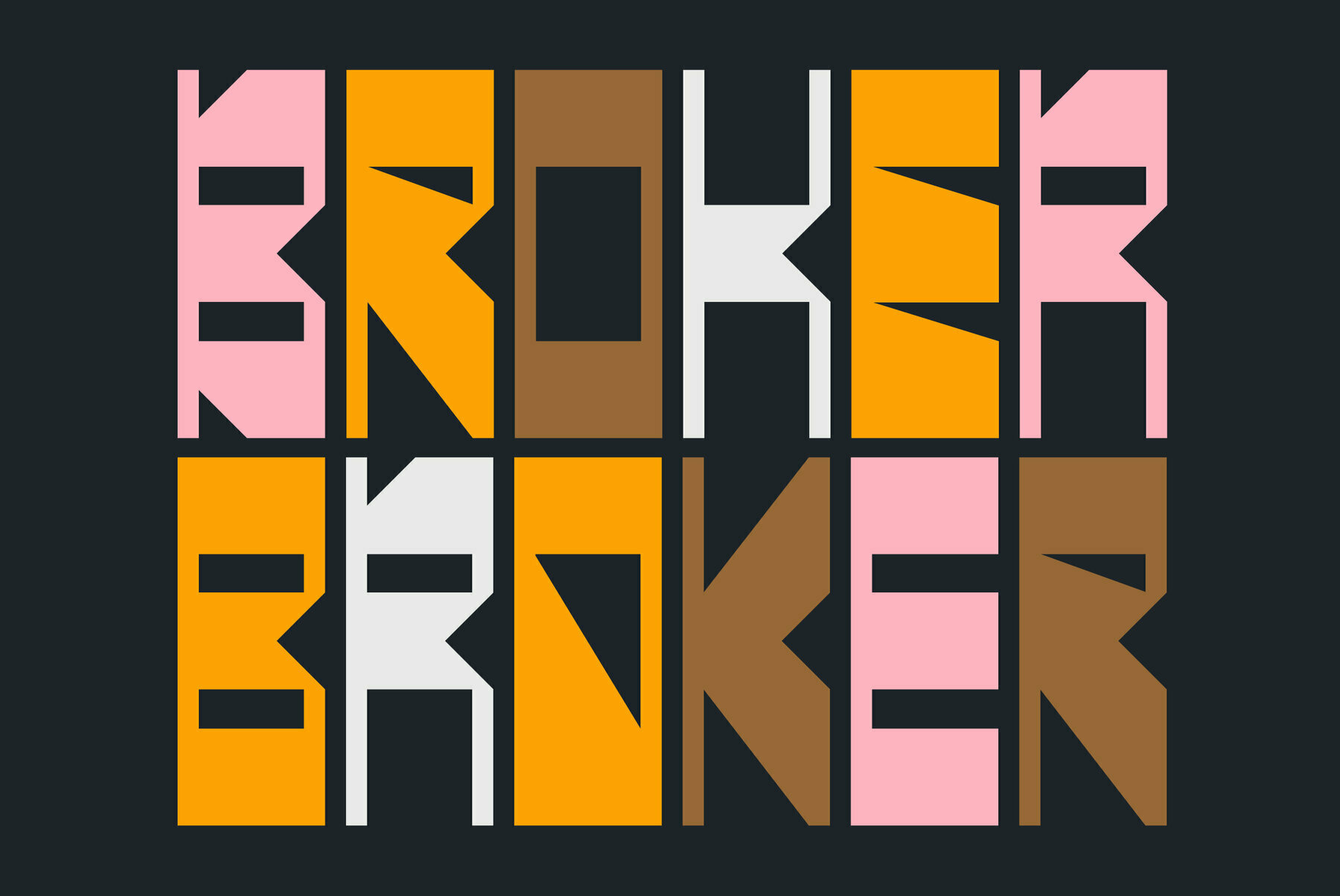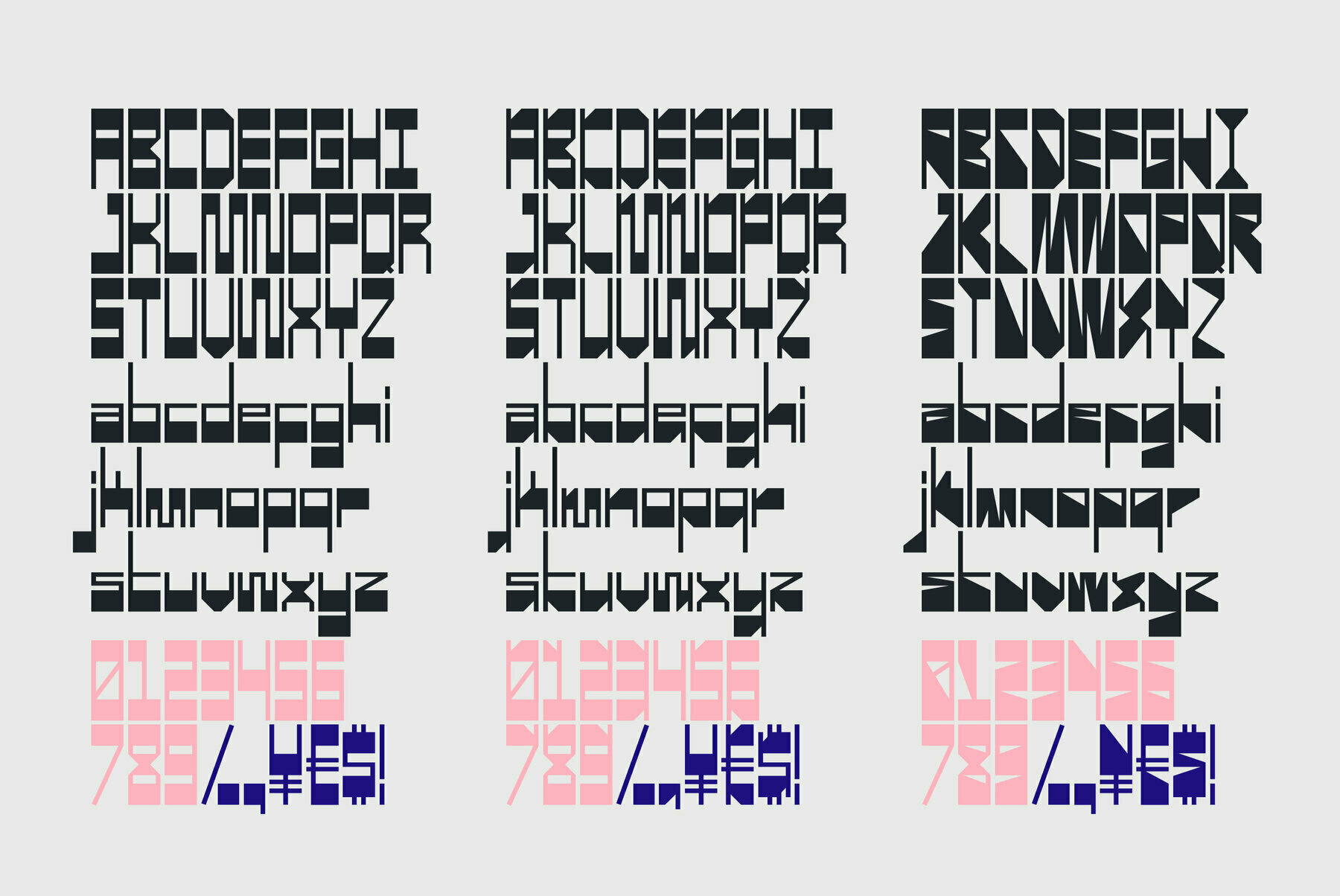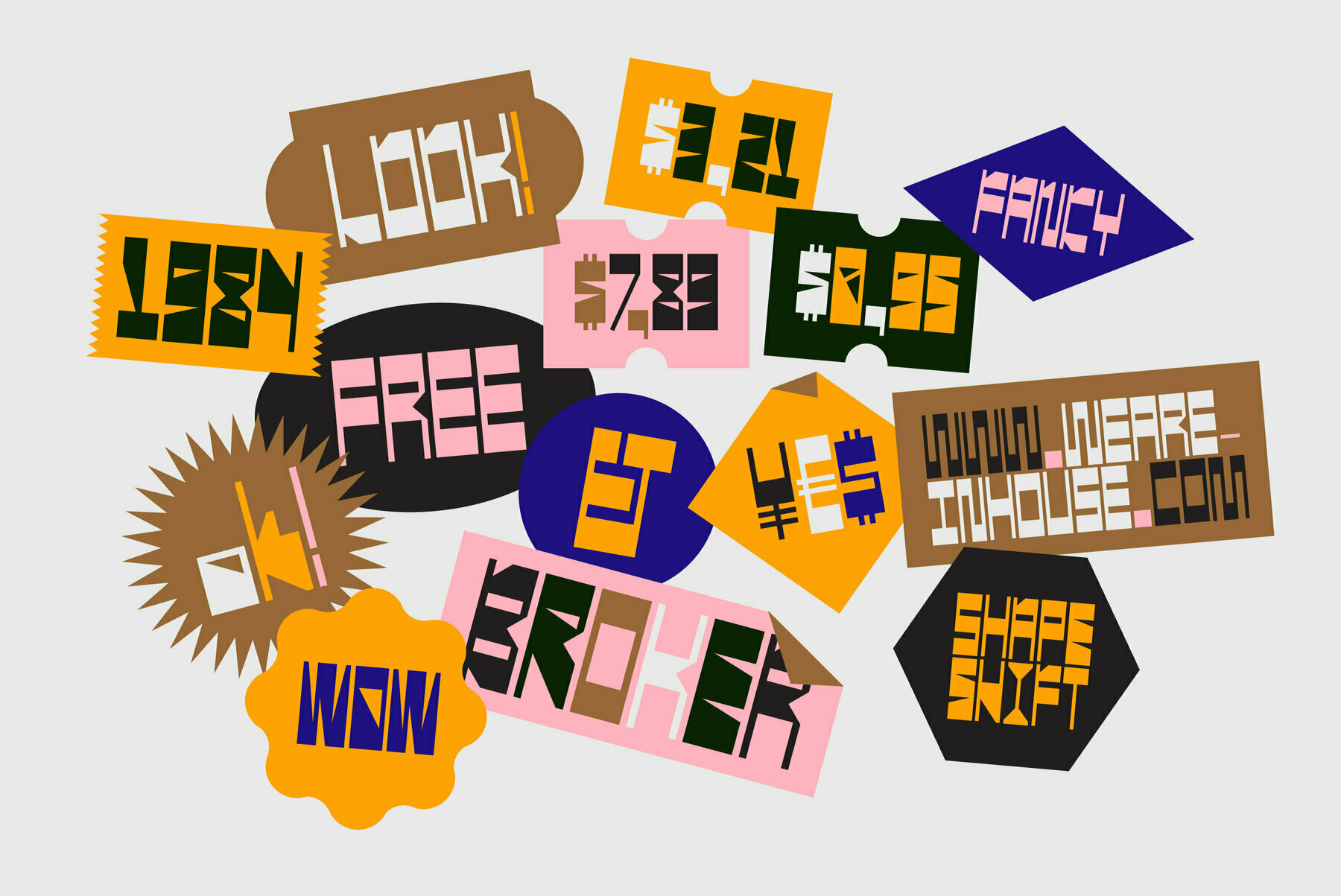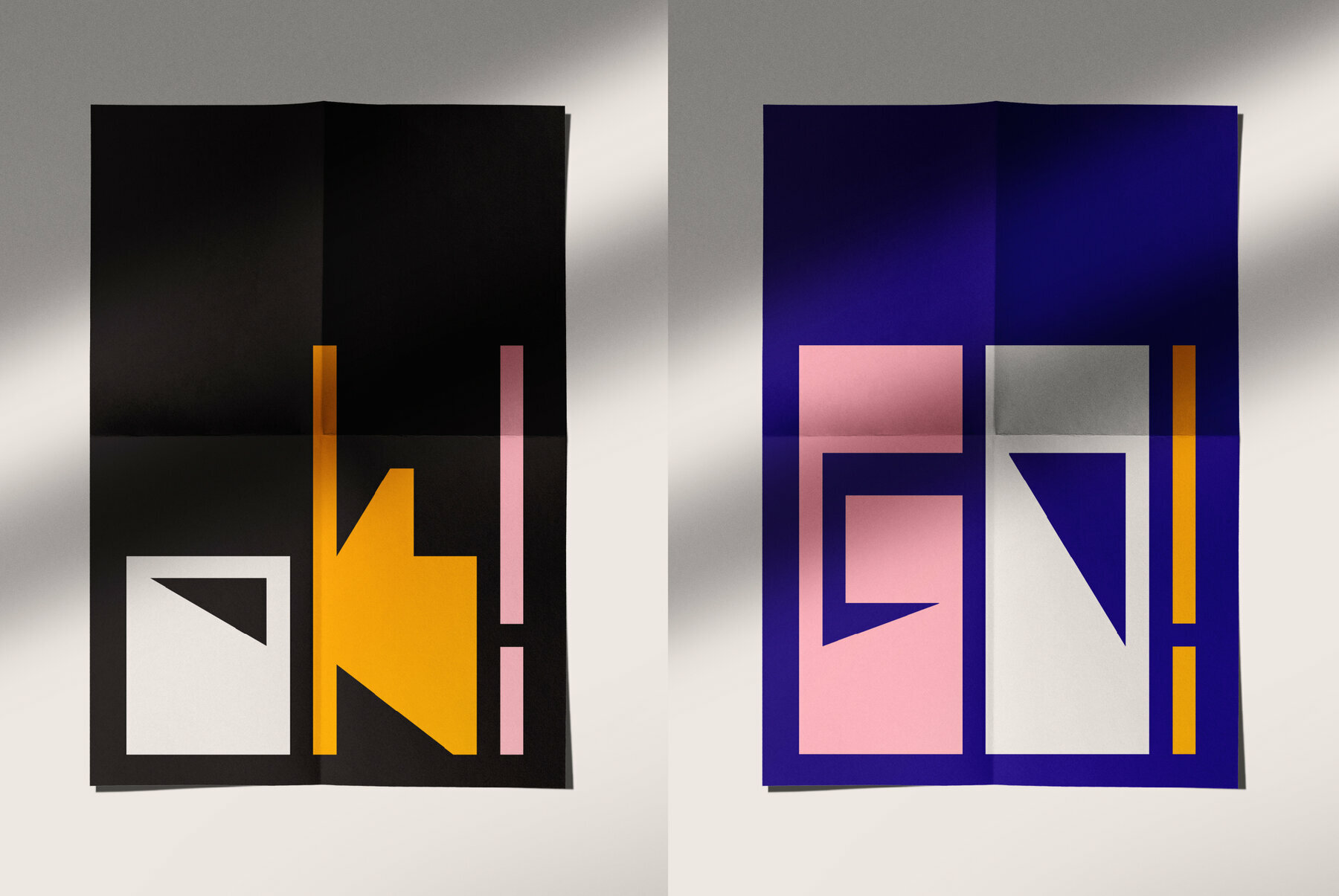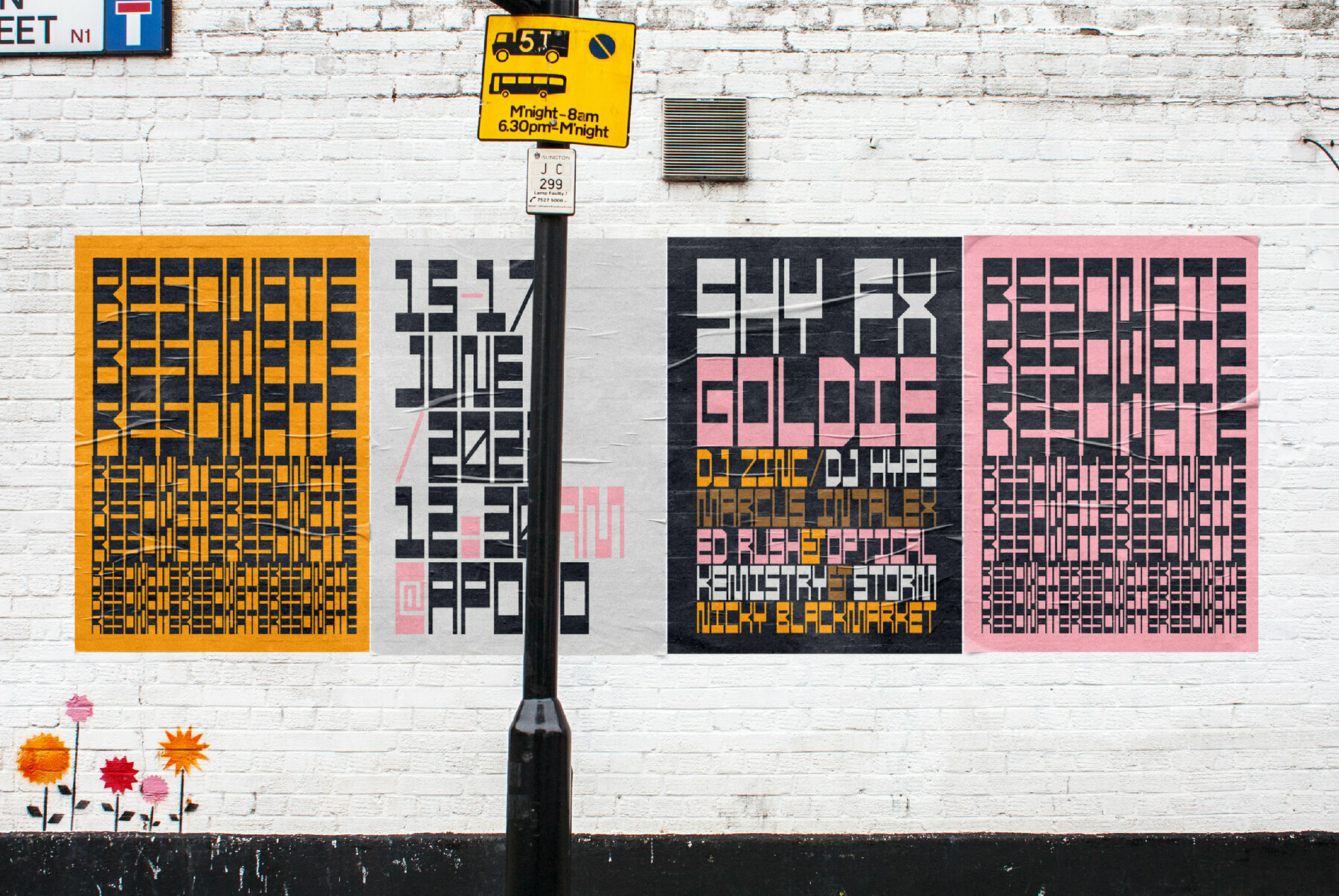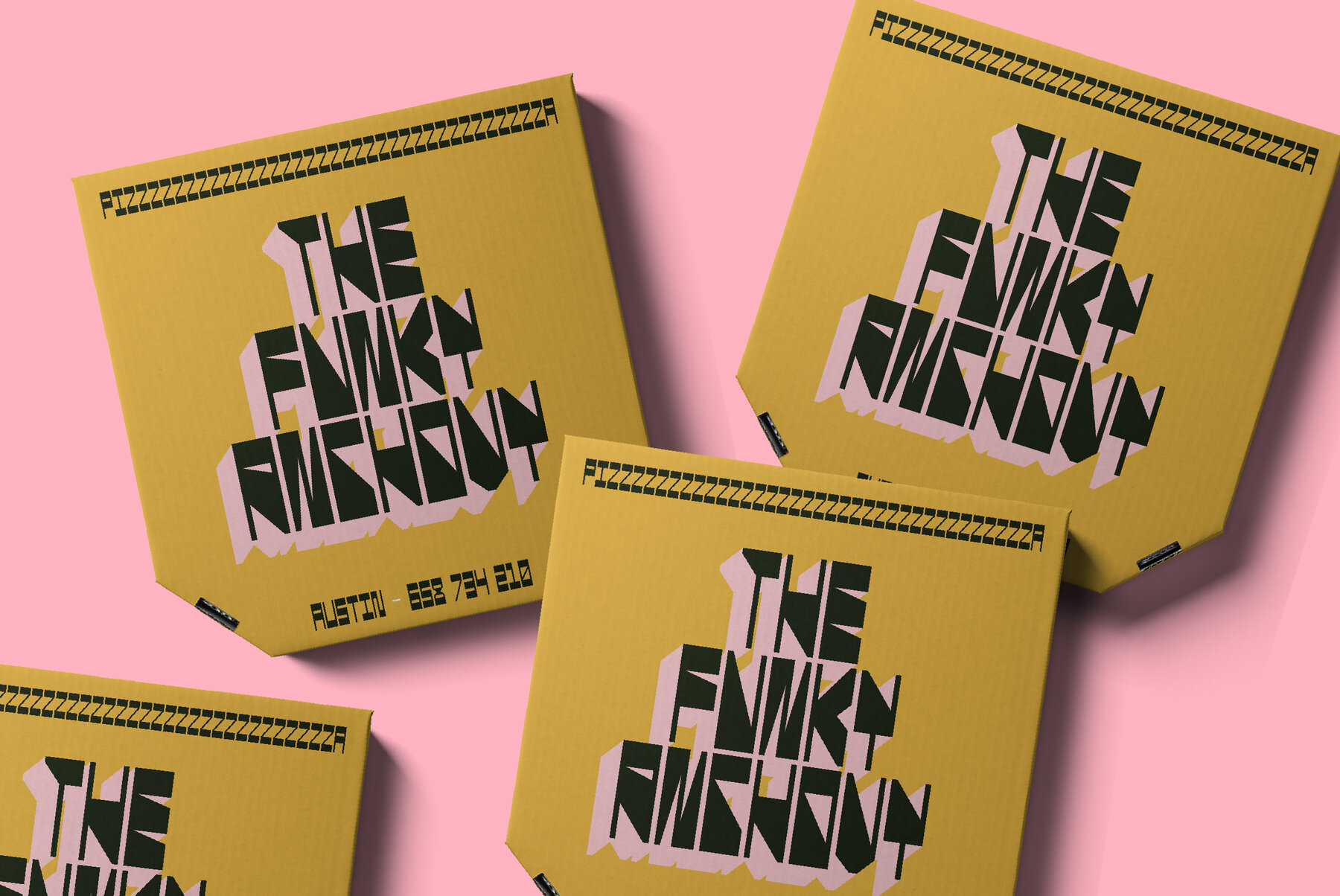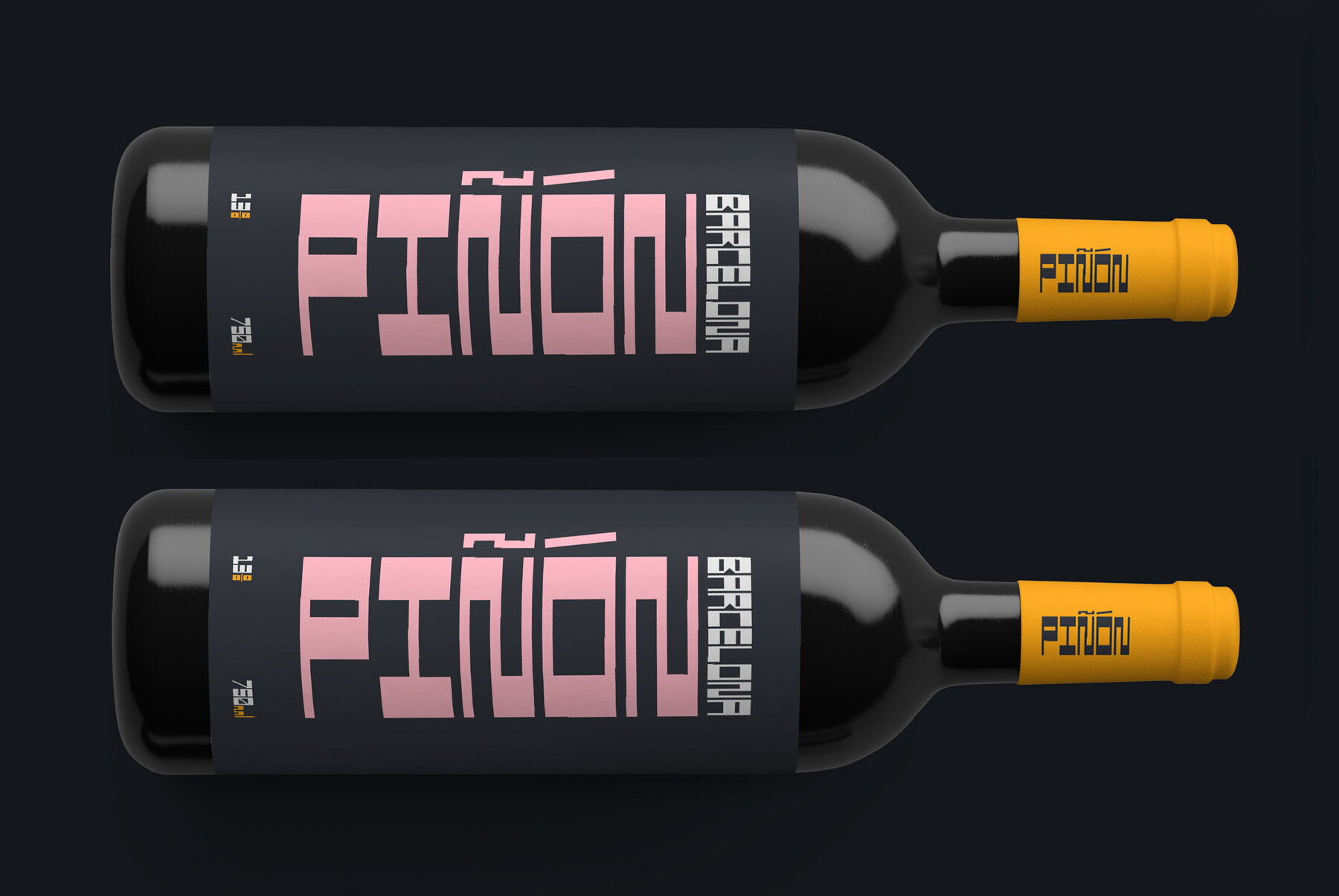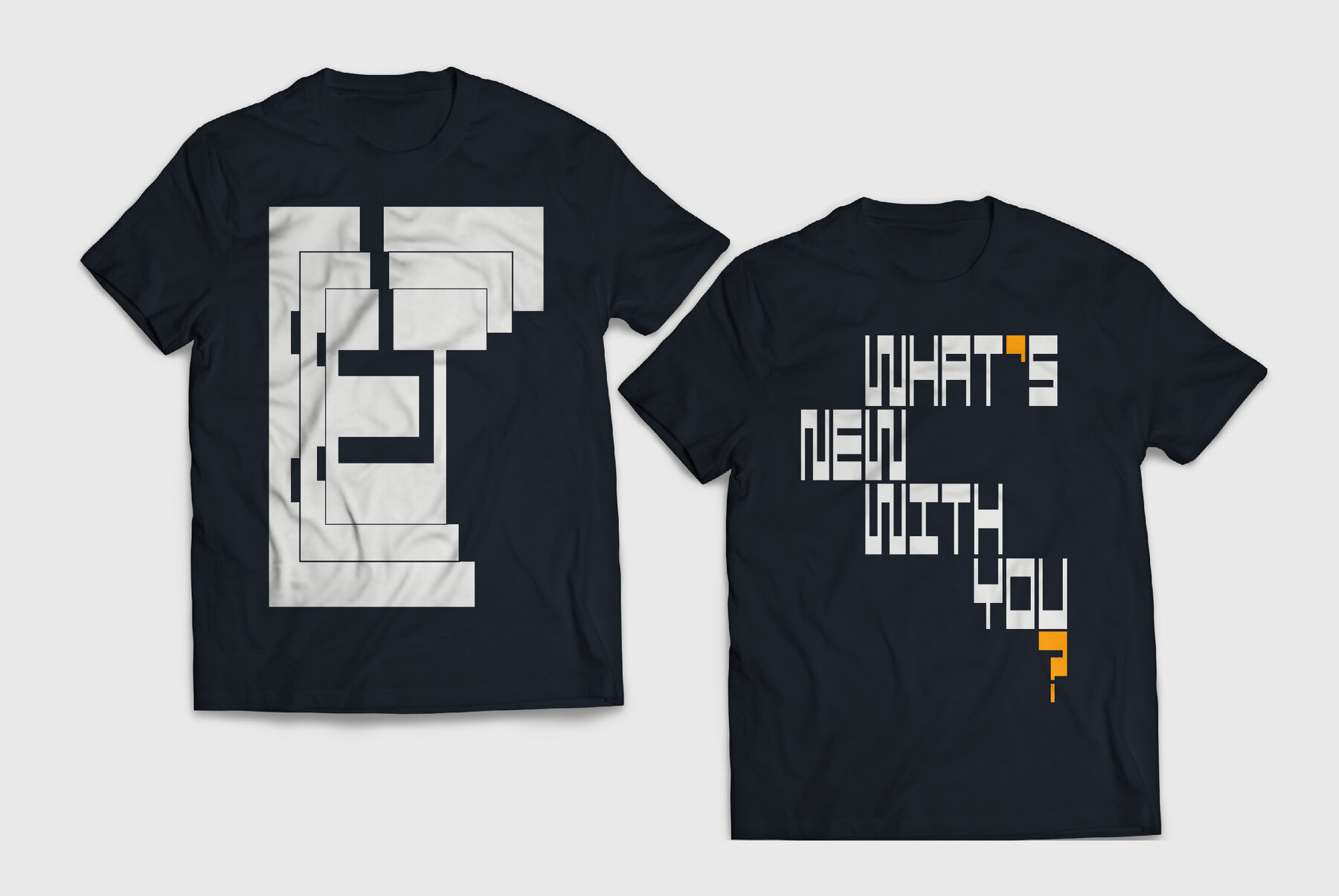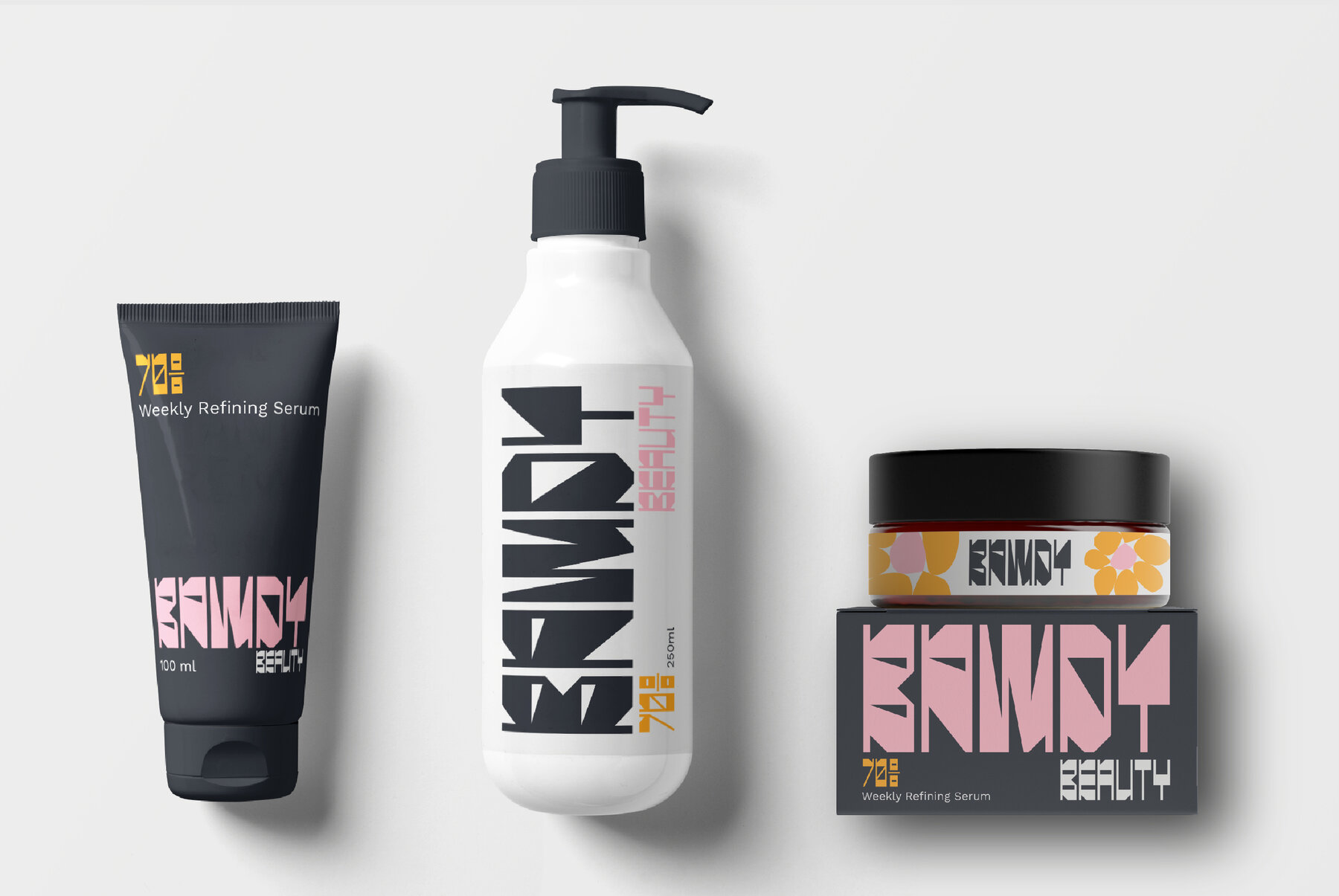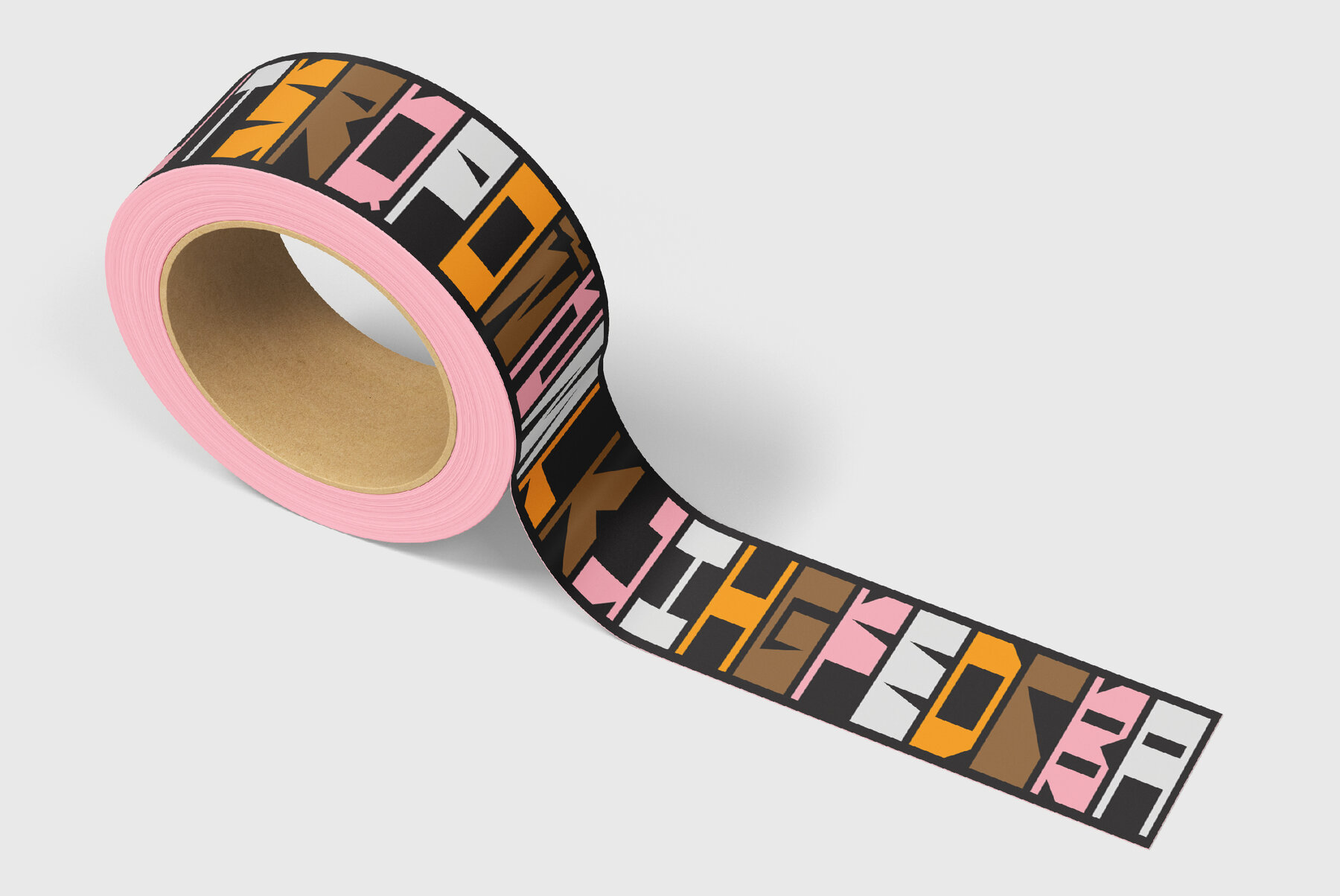
Broker Font
Broker is an angular variable display type family that invites carefree experimentation, but is designed to make a statement. With twelve unique styles and variable controls for thickness, decoration, and shape, Broker is a versatile and expressive shape-shifter that adapts to fit your mood. It can go from slim, square mono-weight to edgy stressed angled styles, and full-on style with chunky serif heels. And because it’s drawn on a rectangular frame, it’s modular, making it particularly easy to lay out and stack.
Inspired by DIY, cut paper lettering Broker isn’t delicate, elegant or precious—it’s a rough and tumble typeface to play with and make your own. Use the variable control to try different styles to give shape to your words. It’s perfect for creative projects, posters, funky packaging, flyers, cover art, motion displays, and fearless branding.
Broker was designed by Alexander Wright and In-House International for the In-House International foundry and developed by Rodrigo Fuenzalida at FragType.